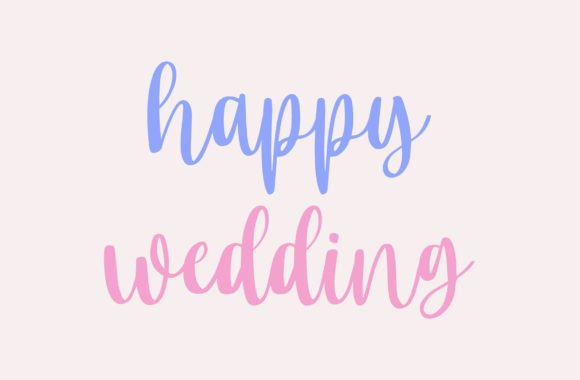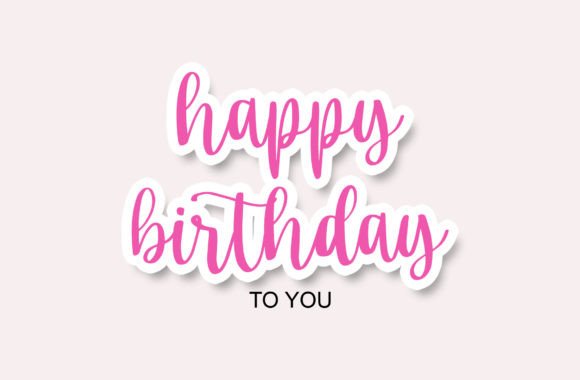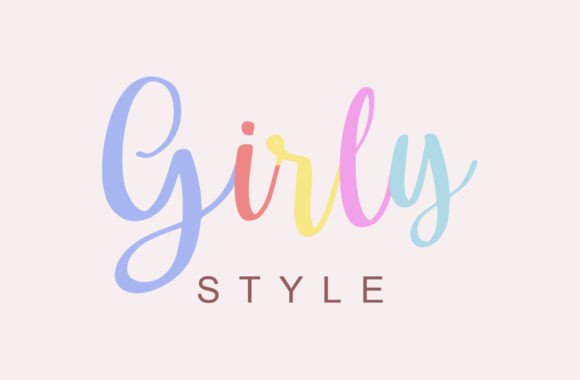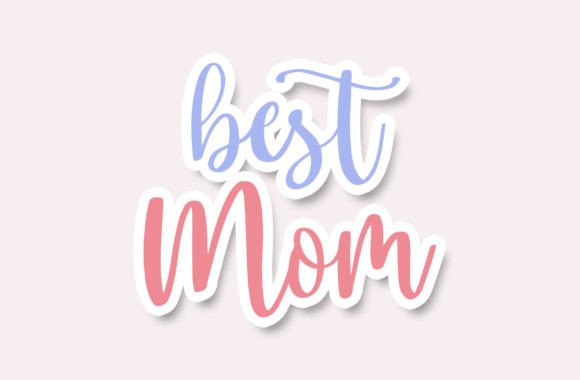
Introduction to Hello Princess Font
Hello Princess is a whimsical Script & Handwritten font that enchants with its delicate and graceful strokes.
With its elegant curves and playful swashes, this font captures the essence of feminine charm Perfect for invitations, greeting cards, or any design project that calls for a touch of enchantment and sophistication.
Key Features of Hello Princess Font